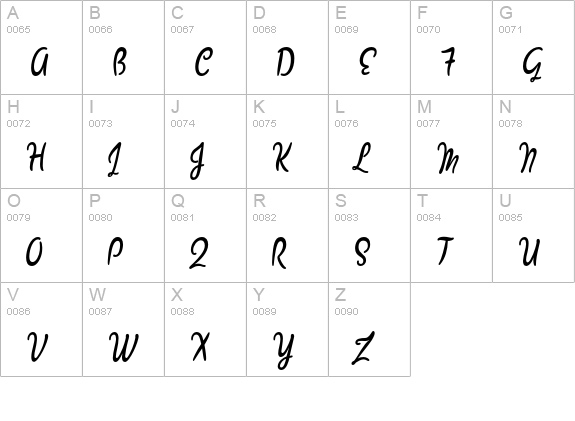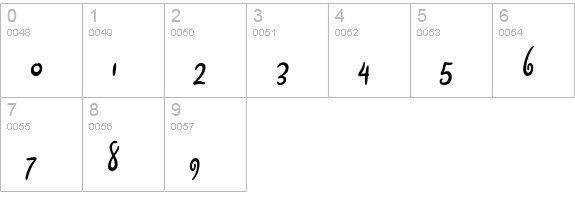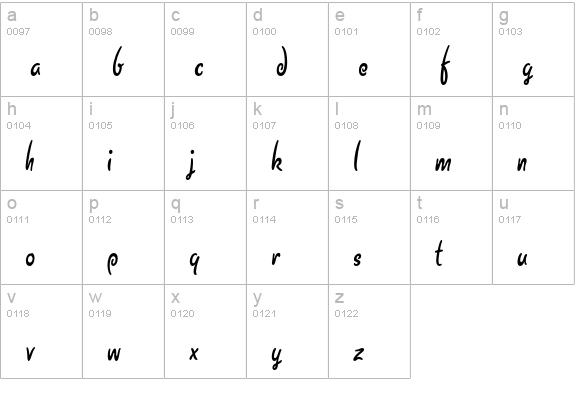
Barrista-Regular Font Details
Barrista-Regular is the standard, neutral variant in the Barrista typeface family \xE2\x80\x94 well suited to general body text, paragraphs, and standard typographic work.
Barrista-Regular is a versatile and modern font that exudes elegance and sophistication. With its clean lines and stylish curves, this typeface is perfect for a wide range of design projects, from branding to editorial design. The sleek and professional look of Barrista-Regular makes it a popular choice for logos, signage, and packaging. The best part? Barrista-Regular is available for free download at FontsMarket.com! Whether you're a professional designer looking to add a new font to your collection or a hobbyist looking to spice up your projects, Barrista-Regular is the perfect choice. Don't miss out on this fabulous font - download Barrista-Regular today and elevate your designs to the next level!